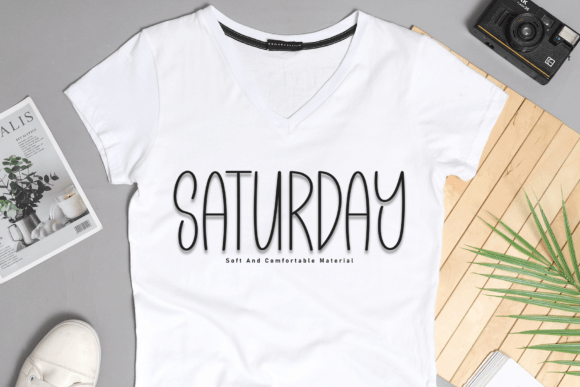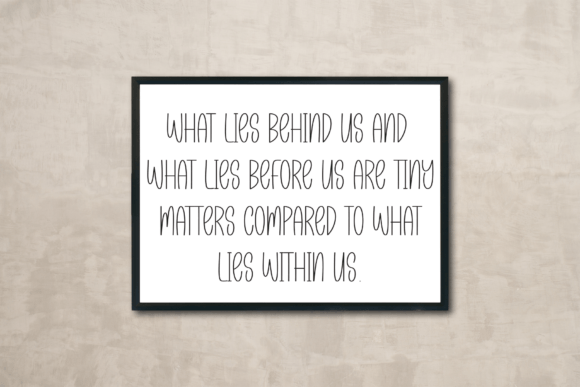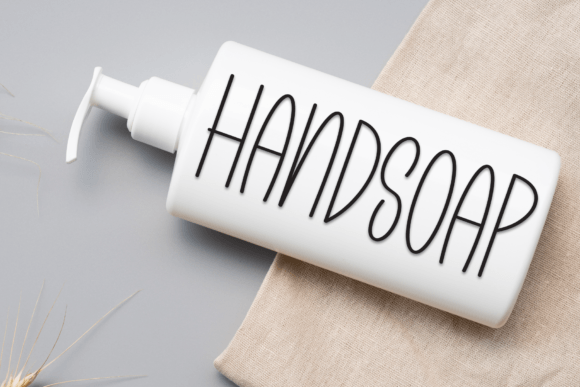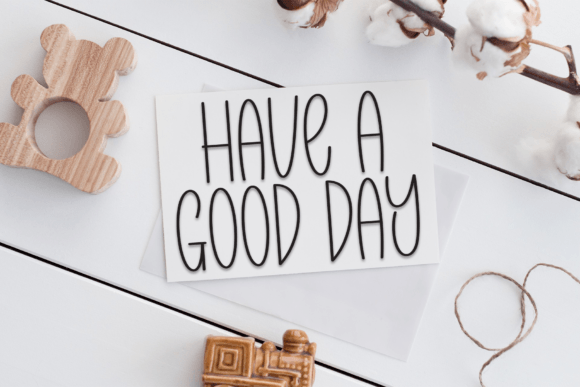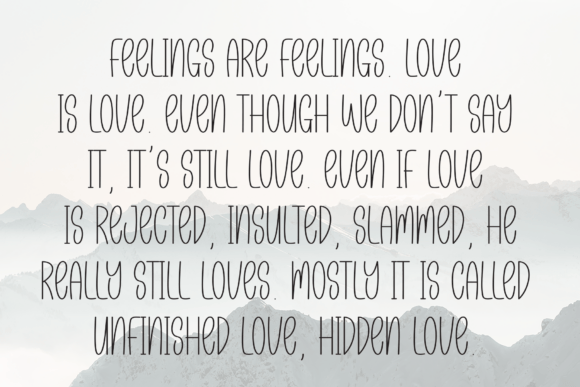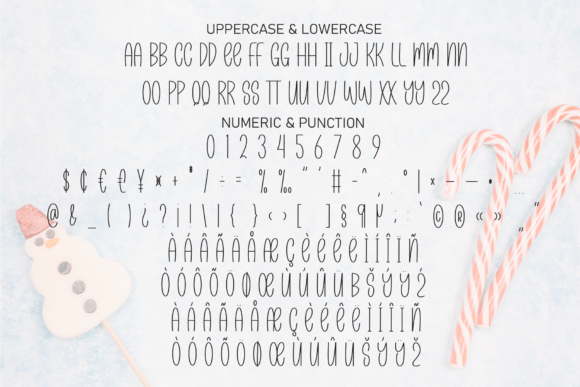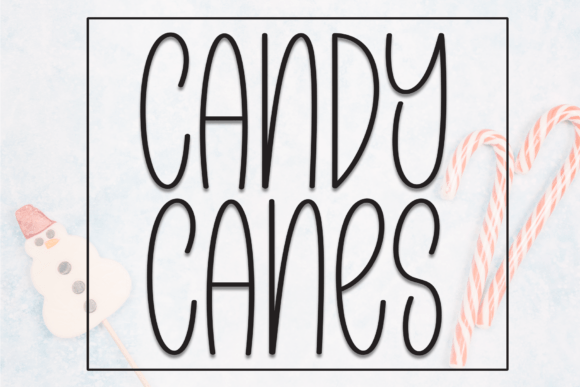
Candy Canes Font: Add a Festive Touch to Your Designs
Are you looking for a font that can add a playful and whimsical touch to your designs? Look no further than the Candy Canes Font! This delightful font is perfect for festive designs, especially around the holidays. Its curves and casual design make it an ideal choice for adding a cheerful, personal touch to your projects.
What is Candy Canes Font?
Candy Canes Font is a playful, handwritten display font that is designed to bring a fun and festive vibe to your designs. Its whimsical style is reminiscent of traditional holiday decorations, making it perfect for Christmas cards, holiday-themed posters, and other festive designs.
Key Features of Candy Canes Font
- Playful and Whimsical Style: Candy Canes Font has a fun and playful style that is sure to add a touch of personality to your designs.
- Handwritten Display Font: This font is designed to be used as a display font, making it perfect for headlines, titles, and other prominent text elements.
- Curves and Casual Design: The font’s curves and casual design give it a friendly and approachable feel, making it perfect for designs that need to feel festive and fun.
Uses for Candy Canes Font
Candy Canes Font is a versatile font that can be used in a variety of design projects, including:
- Holiday-themed Posters and Flyers: Add a festive touch to your holiday-themed posters and flyers with Candy Canes Font.
- Christmas Cards and Invitations: Make your Christmas cards and invitations stand out with this fun and playful font.
- Social Media Graphics: Add a touch of personality to your social media graphics with Candy Canes Font.
- Crafting and DIY Projects: This font is perfect for crafters and DIY enthusiasts who want to add a personal touch to their projects.
Why Choose Candy Canes Font?
There are many fonts to choose from, but Candy Canes Font stands out for its unique and playful style. Here are a few reasons why you should choose Candy Canes Font for your next design project:
- Unique and Playful Style: Candy Canes Font has a unique and playful style that is sure to make your designs stand out.
- Easy to Read: Despite its playful style, Candy Canes Font is easy to read, making it perfect for use in a variety of design projects.
- Versatile: This font can be used in a variety of design projects, from holiday-themed posters to social media graphics.
Tips for Using Candy Canes Font
Here are a few tips for using Candy Canes Font in your design projects:
- Use it as a Display Font: Candy Canes Font is designed to be used as a display font, so use it to add a touch of personality to your headlines and titles.
- Pair it with Other Fonts: Pair Candy Canes Font with other fonts to create a unique and interesting design.
Candy Canes Font is a playful and whimsical font that is perfect for adding a festive touch to your designs. Its curves and casual design make it an ideal choice for holiday-themed posters, Christmas cards, and other festive designs. With its unique and playful style, ease of use, and versatility, Candy Canes Font is a great choice for designers and crafters looking to add a personal touch to their projects.